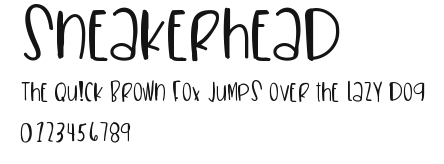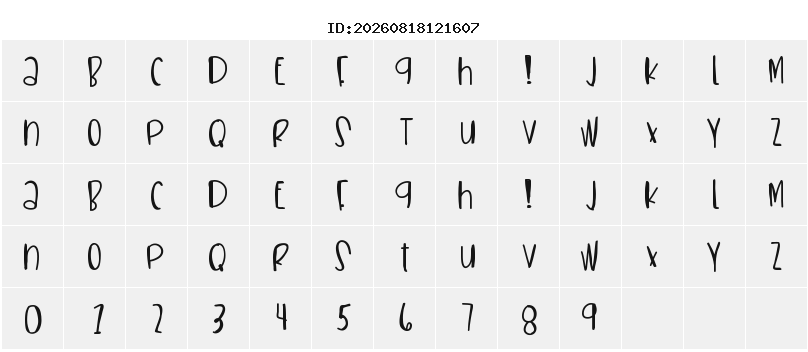
• Font Name: Sneakerhead
• Full Font Name: Sneakerhead
Sneakerhead.ttf is a modern, elegant sans-serif font designed for ultimate readability and visual harmony. Perfect for branding, headlines, web design, and print materials.